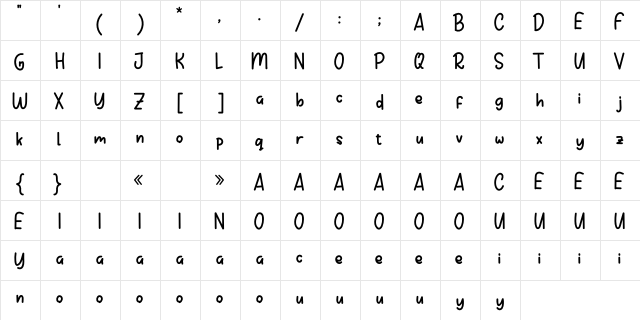
Pumkins Personal Use
| Designer | Rozi |
Design Context for Pumkins Typeface
Pumkins takes a measured approach to typography — its balanced proportions and neutral character make it a reliable workhorse for both digital and print work.